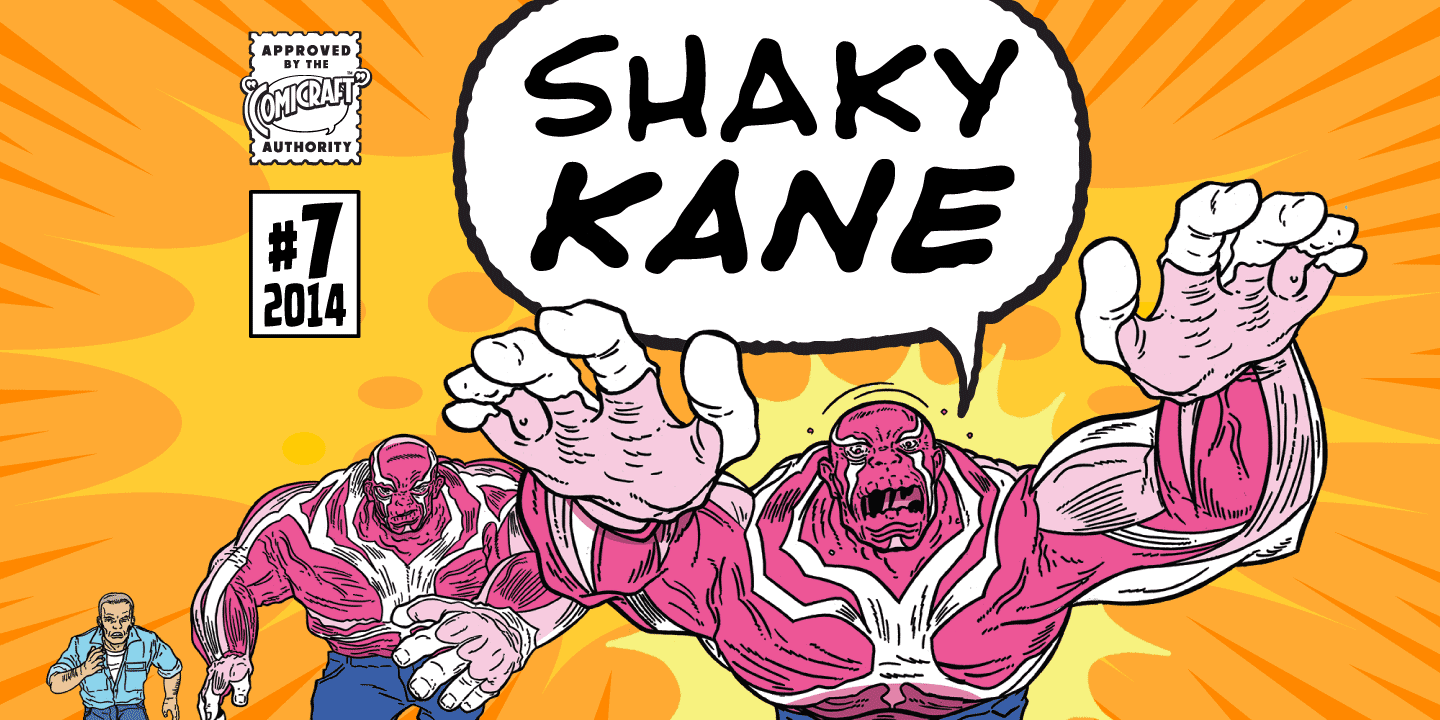
Shaky Kane Font is perfect for comic book lettering, underground graphic novels, alternative music band logos, indie publication designs, hand-drawn poster graphics, artistic zine layouts, experimental art projects, and rebellious creative campaigns. This tremblingly expressive typeface excels in projects requiring raw artistic energy and unconventional character where underground creativity meets authentic hand-drawn aesthetics.
What makes Shaky Kane Font exciting is its authentic capture of nervous energy and artistic rebellion through deliberately unsteady letterforms that embody the raw emotion and creative intensity of underground art movements. The font features intentionally shaky characters with organic tremors and authentic imperfections that convey artistic passion, creative anxiety, and the unfiltered expression of underground artistic vision. Its rebellious character makes it perfect for alternative artists and independent creators seeking to communicate authentic emotion and unconventional artistic perspectives.
Shaky Kane Font family includes various tremor weights and artistic variations that enhance its underground appeal while providing design flexibility for alternative and experimental creative applications. The family typically offers light shake, regular shake, and heavy shake variations, along with hand-drawn alternates, artistic symbols, and underground ornaments that complement alternative art and indie design themes perfectly.
Whether you're designing independent comic publications, creating alternative music artwork, or developing underground art exhibition materials, Shaky Kane Font Free Download provides the perfect rebellious solution for projects requiring authentic artistic expression and underground creative energy. This font's raw appeal and alternative aesthetic make it essential for independent artists and creators who value authentic emotional expression over conventional design polish.
The authentically shaky letterforms and nervous proportions of Shaky Kane Font create immediate emotional connections to underground art culture while maintaining readable artistic communication. Its distinctive rebellious personality and alternative symbolism make it an invaluable tool for designers working with independent publishing, alternative music, and underground art movements. Download Shaky Kane Font today and inject raw artistic energy into your creative projects with this authentically expressive typeface that perfectly captures the trembling intensity of underground artistic rebellion and independent creative spirit.